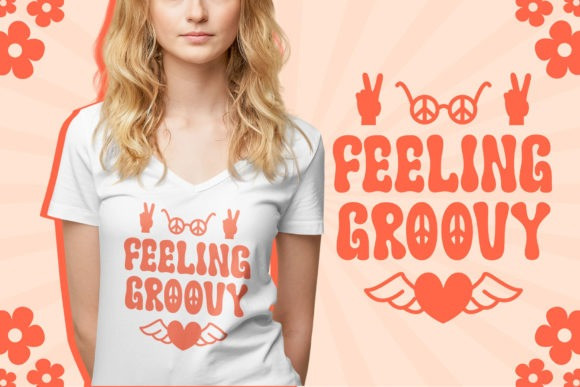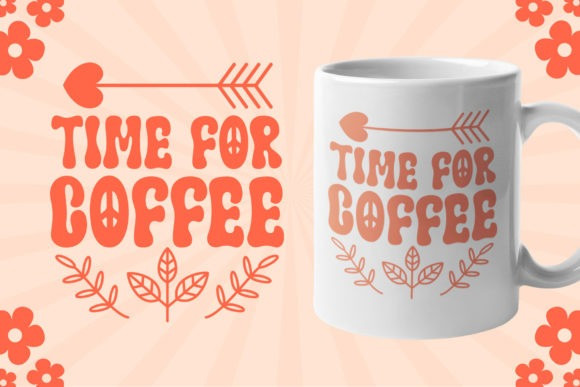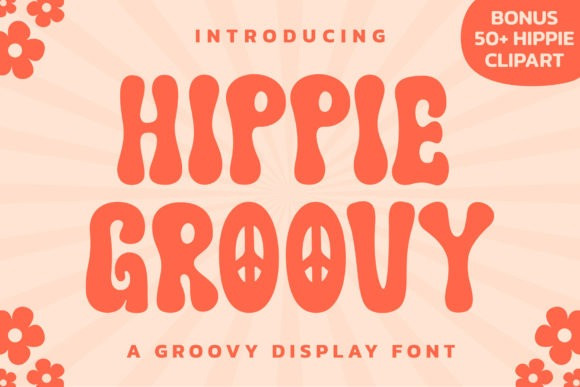
Hippie Groovy Font
Hippie Groovy Font is a cool boho-style display font with charming letters and hippie-style dingbats.
This font is perfect for creating groovy t-shirts, stickers, cover books, children’s books, social media posts, etc.